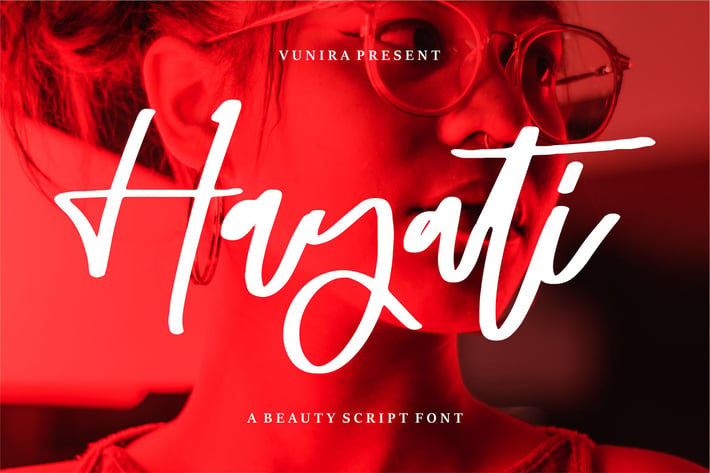
Hayati | A Beauty Script Font
Hayati | A Beauty Script Font with a calligraphy style, So beautiful on invitation like greeting cards, branding materials, business cards, quotes, posters, and more!